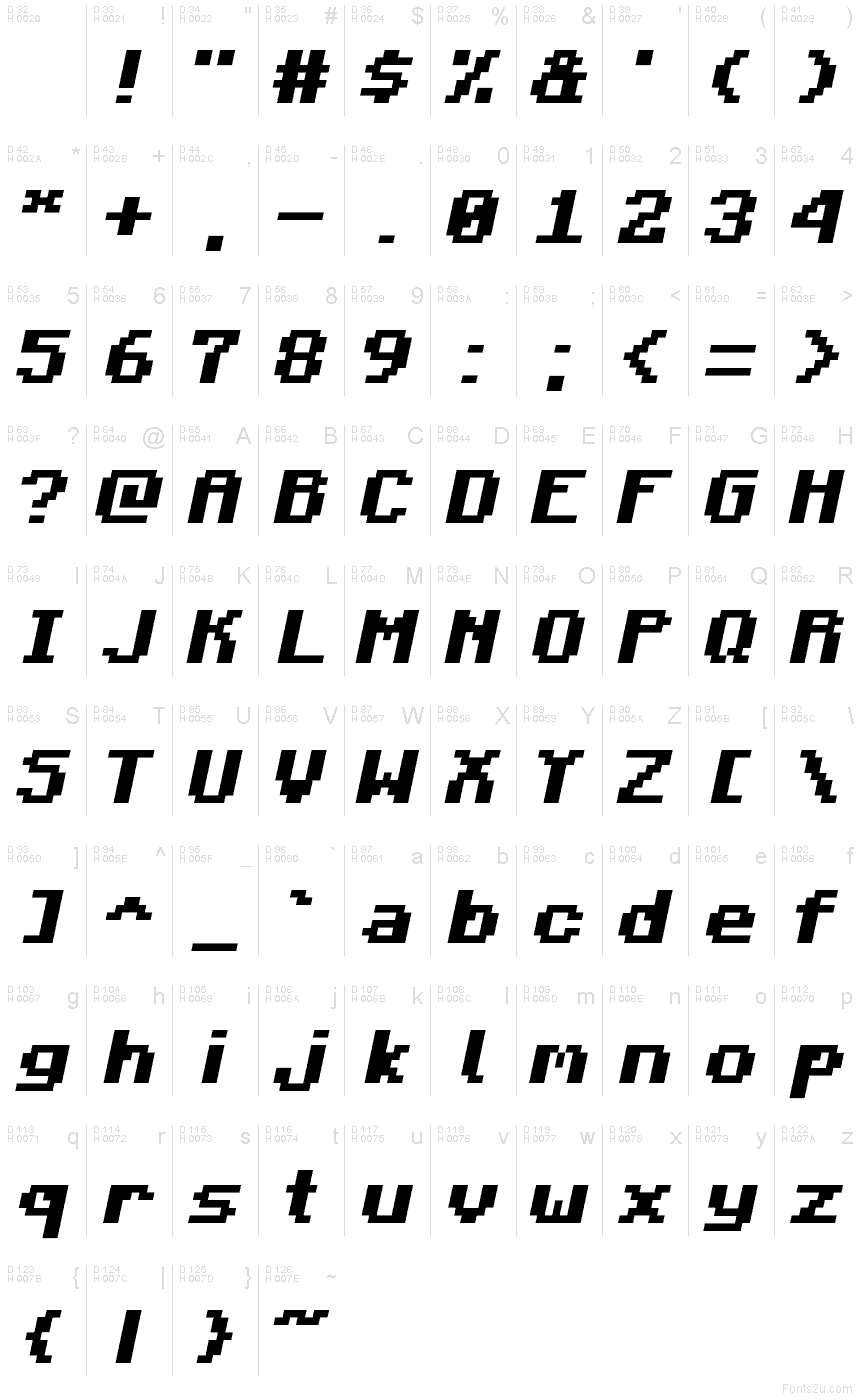
mac's Tweaked Minecraft Bold Italic
mac's Minecraft Bold Italic Tweaked font by Macimas is a pixelated, bold bitmap typeface with an expanded width. It exhibits blocky and geometric characters inspired by the classic video game aesthetic, enhancing a nostalgic feel. Each character is perfectly designed to visually resemble those from Minecraft and other old-school games. As a free font, it’s one players love seeing in use.
Possible applications for this artistic display font include posters, video games design, social media posts, YouTube banners, thumbnails, logos for pixelated brands and businesses aimed at teens or kids who adore games. It can also be used for short printed materials like print-on-demand products or typography artwork.
❤️ Main - This is the Minecraft font with bold and italic styles.
?️ Tweaked - This package makes adjustments to the main collection, primarily enhancing the readability of certain bold characters.
✨ Extended - A fun experiment that adds additional characters to the main package.